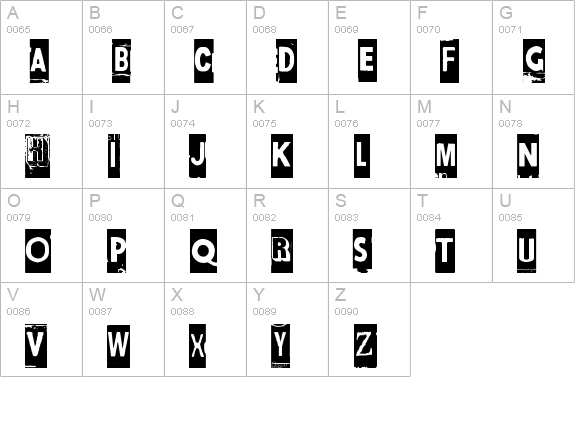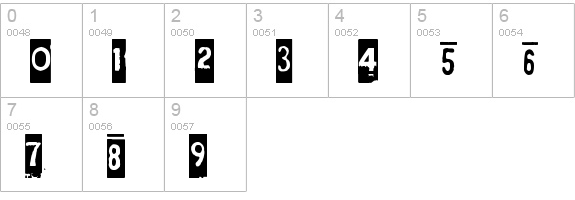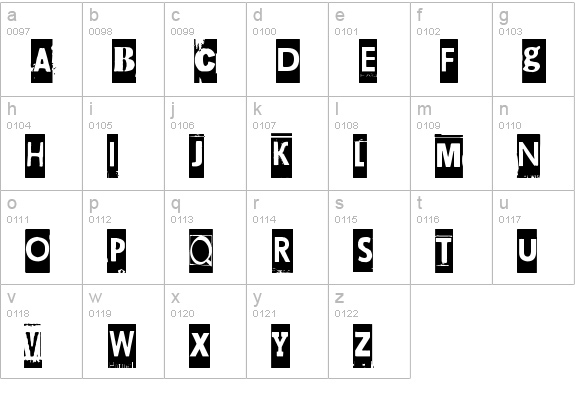
Maksukehoitus Font Details
Maksukehoitus font is a stunning display typeface that exudes elegance and sophistication. With its sleek lines and modern design, this font is perfect for adding a touch of sophistication to any project. Whether you're creating a logo, designing a website, or crafting a poster, Maksukehoitus font will elevate your work to new heights. Best of all, Maksukehoitus font is completely free to download at FontsMarket.com. This means you can access this beautiful font without any cost, making it an excellent choice for designers on a budget. Don't miss out on this fantastic opportunity to enhance your designs with the exquisite Maksukehoitus font. Download it today and see the difference it can make in your projects.